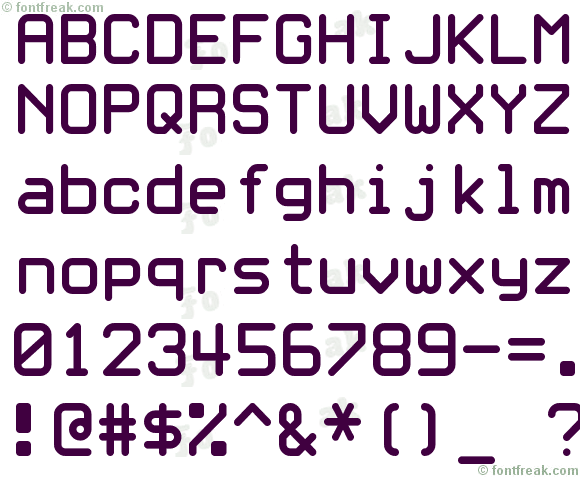
White Rabbit
About White Rabbit
The White Rabbit font, designed by Matthew Welch in 1999, is a striking display typeface that perfectly balances whimsy and readability. This freeware font features a bold, sans-serif style characterized by its clean lines and playful curves. The stroke weight is consistent, providing a solid appearance that remains legible even at larger sizes. The spacing between characters is thoughtfully designed, ensuring a harmonious flow that draws the eye without overwhelming the viewer. The font’s distinctive style is enhanced by subtle decorative elements that evoke a sense of light-hearted fun, making it ideal for various creative applications.
The White Rabbit font is particularly well-suited for cheerful wedding invitations, where its playful nature can convey a sense of joy and celebration. It also shines in movie posters, especially for family-friendly films or animated features, capturing attention with its engaging aesthetic. Restaurant menus can benefit from its unique charm, helping to create a memorable dining experience that reflects the restaurant's creative spirit. Additionally, content creators looking to add a touch of whimsy to their digital or print projects will find this font a delightful choice.
Targeting graphic designers, small business owners, and content creators, the White Rabbit font appeals to those who seek to inject personality into their designs without sacrificing clarity. Its versatility and distinctive character make it a standout option for a wide range of projects.